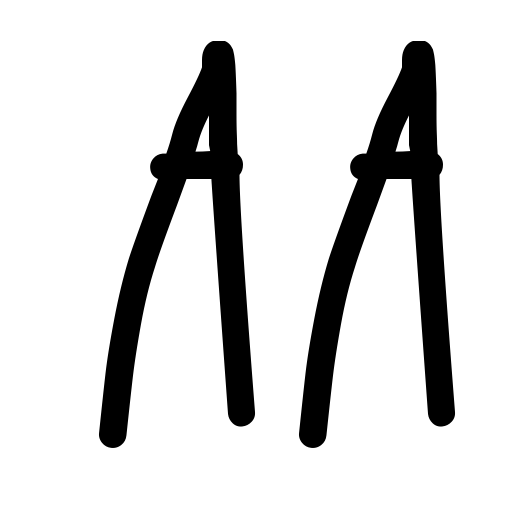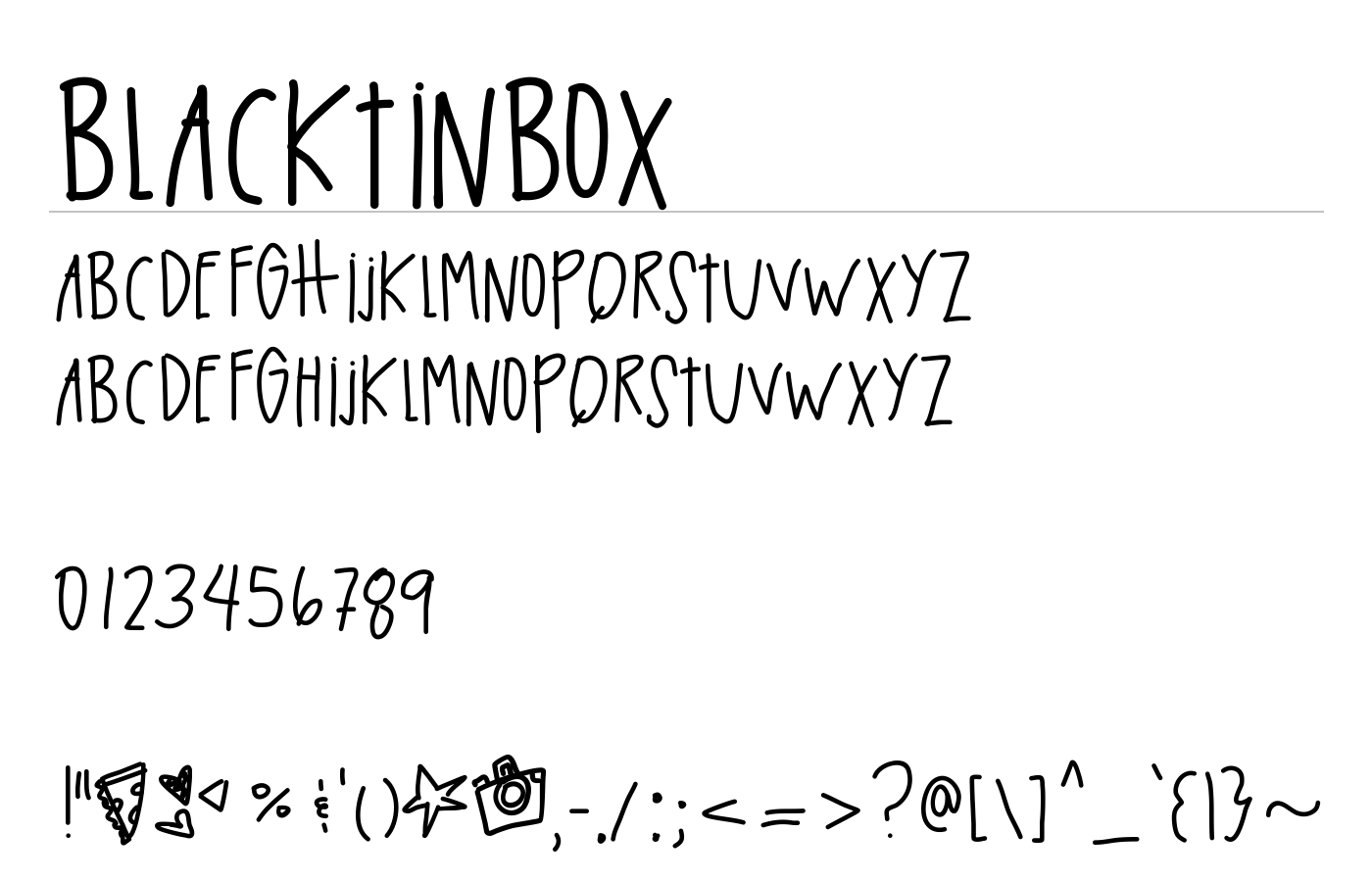
BlackTinBox is a quirky, handwritten sans serif font with an informal and playful vibe. Its tall, narrow letterforms and uneven strokes give it a casual, friendly appearance that works well for creative projects, children’s designs, or anything seeking a personal, approachable feel. This font is perfect for headlines, branding, and fun editorial uses where a unique, hand-crafted style is desired.
BlackTinBox Font